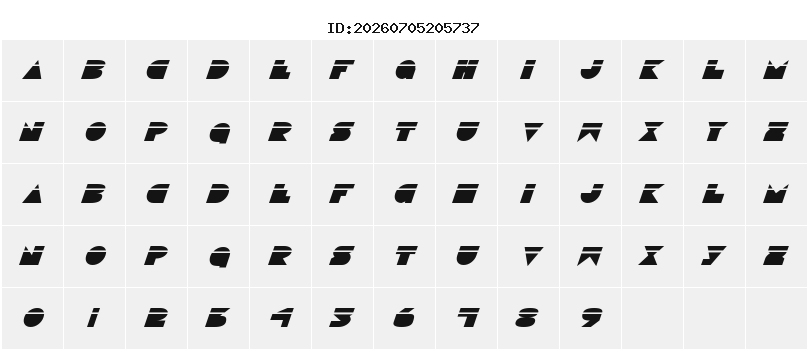
Disco Deck Laser Italic Preview
• Font Name: Disco Deck Laser Italic
• Font Style: Laser Italic
• Full Font Name: Disco Deck Laser Italic
About Disco Deck Laser Italic.ttf
Disco Deck Laser Italic.ttf is a modern, elegant sans-serif font designed for ultimate readability and visual harmony. Perfect for branding, headlines, web design, and print materials.